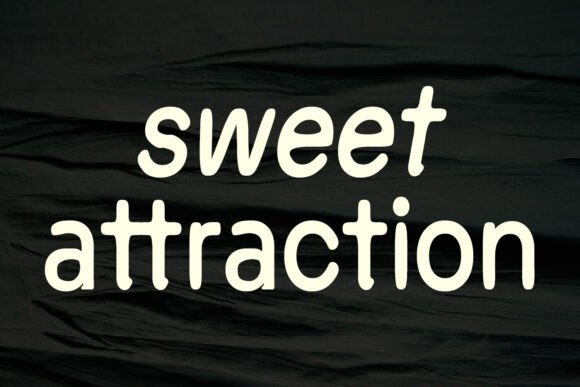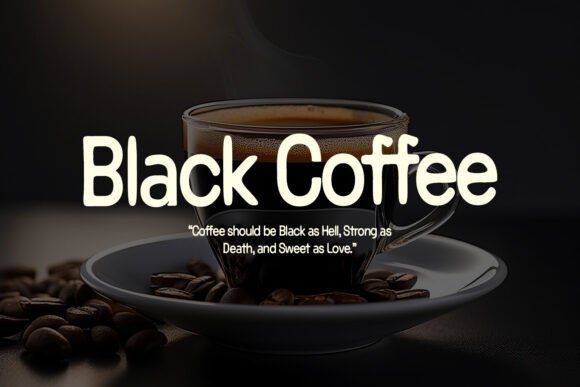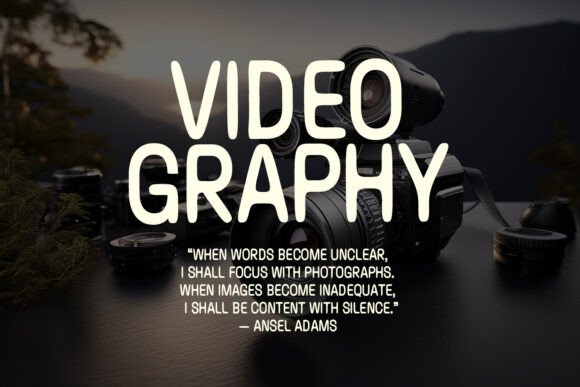
Introduction to Battoki Kitanova Font
Have you ever stared at a blank canvas, searching for the perfect font to bring your creative vision to life? The moment of truth arrives when you finally find that elusive combination of style and substance – and for many designers, the Battoki Kitanova Font is that elusive gem. With its bold sans-serif design and modern flair, this font is the ultimate game-changer for anyone looking to make a lasting impression.
As a valuable addition to any design resource, the Battoki Kitanova Font is perfect for creating eye-catching headlines, promotional designs, and creative posters that demand a contemporary yet approachable aesthetic. Its high-quality design and striking structure make it an ideal choice for designers seeking a unique and impactful look.
What sets Battoki Kitanova Font apart is its versatility – whether you’re working on a free download project or a high-end branding campaign, this font is sure to elevate your design and leave a lasting impression. With its transparent background and sleek design, the Battoki Kitanova Font is an essential tool for any creative project that requires a bold and modern touch.
- Features a unique, elegant design with intricate details and subtle texture for added visual interest
- Perfect for use in logo design, branding, typography, and other creative projects that require a high-end look
Honest Review: Battoki Kitanova Font
As a designer, I’m always on the lookout for high-quality fonts that can elevate my creative projects. Recently, I had the chance to work with the Battoki Kitanova Font, and here’s my honest review.
- ✨ The Battoki Kitanova Font has a beautiful, modern design that’s perfect for a variety of projects, from logos to web design.
- ✨ The font is highly customizable, allowing me to adjust the transparency and background to suit my design needs.
- ⚠️ The font doesn’t support all languages, which can be a problem for international design projects.
- ⚠️ The font’s high quality comes at a cost – it can be quite heavy, which may slow down loading times.
Overall, I’m impressed with the Battoki Kitanova Font. While it has some limitations, its unique design and customization options make it a valuable addition to any designer’s toolkit. I’d definitely recommend it for creative projects where a modern, high-quality font is needed.
Tips for Getting the Most Out of Battoki Kitanova Font
For the best results, use the Battoki Kitanova Font in conjunction with high-quality images and a clear design concept. Experiment with different font sizes and styles to create a visually appealing design. Additionally, consider using the font with a transparent background to add an extra layer of sophistication to your design.
Common Use Cases for Battoki Kitanova Font
The Battoki Kitanova Font is suitable for a variety of creative projects, including business cards, brochures, and website design. Its elegant and sophisticated design makes it perfect for luxury brands and high-end products.